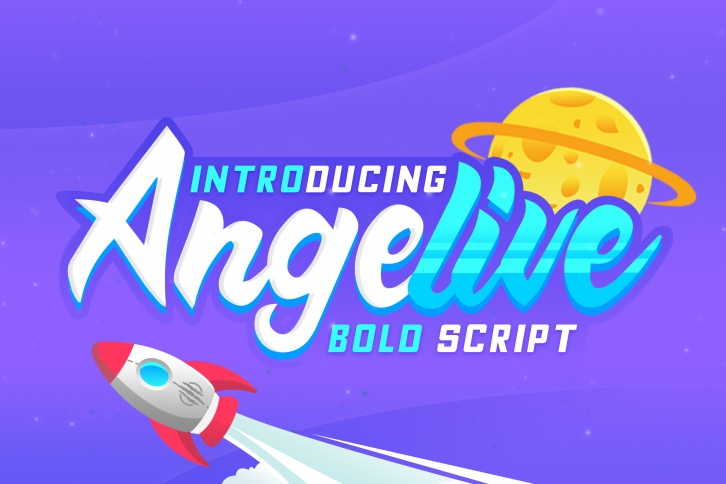
Angelive Bold Script is a trendy and unique font with an authentic style. It was designed by Kruweks Studio and it's a great choice for creative people who need such a font. It was released on September 30, 2019 and the file size is 4.10 MB. Angelive Bold Script will add an organic vibe to any design idea!